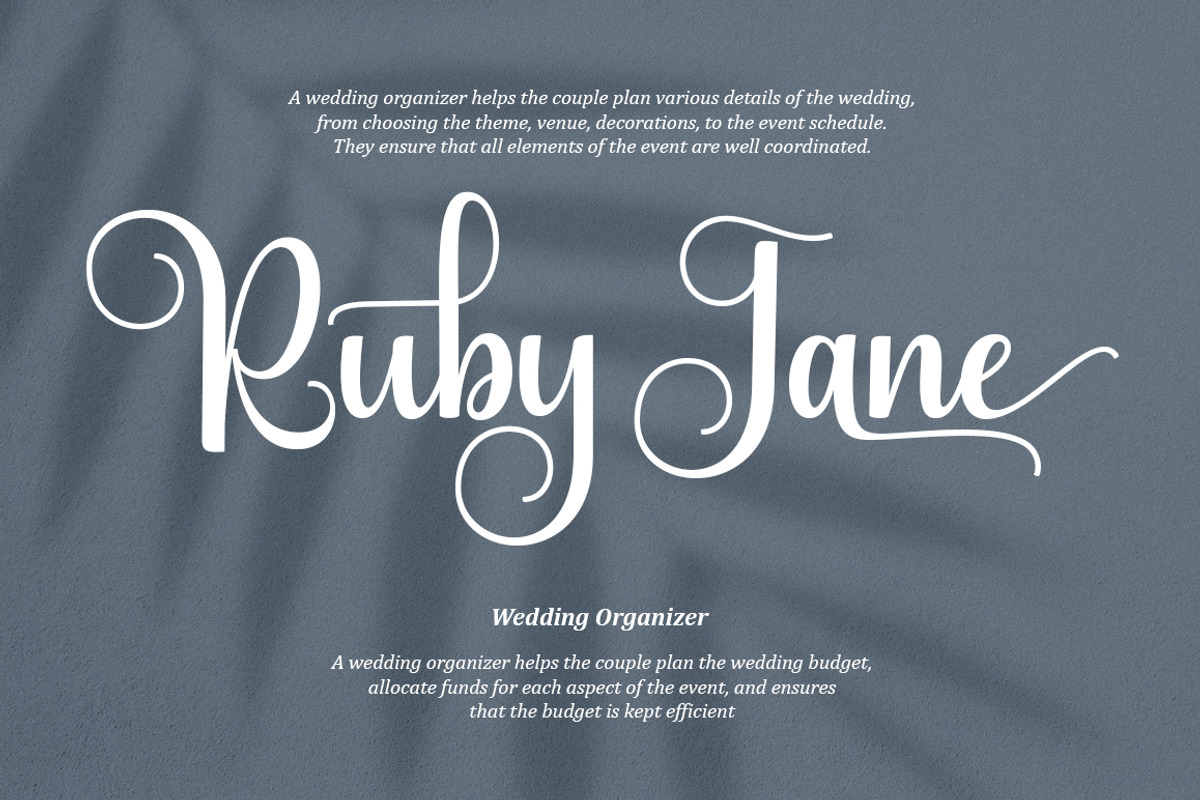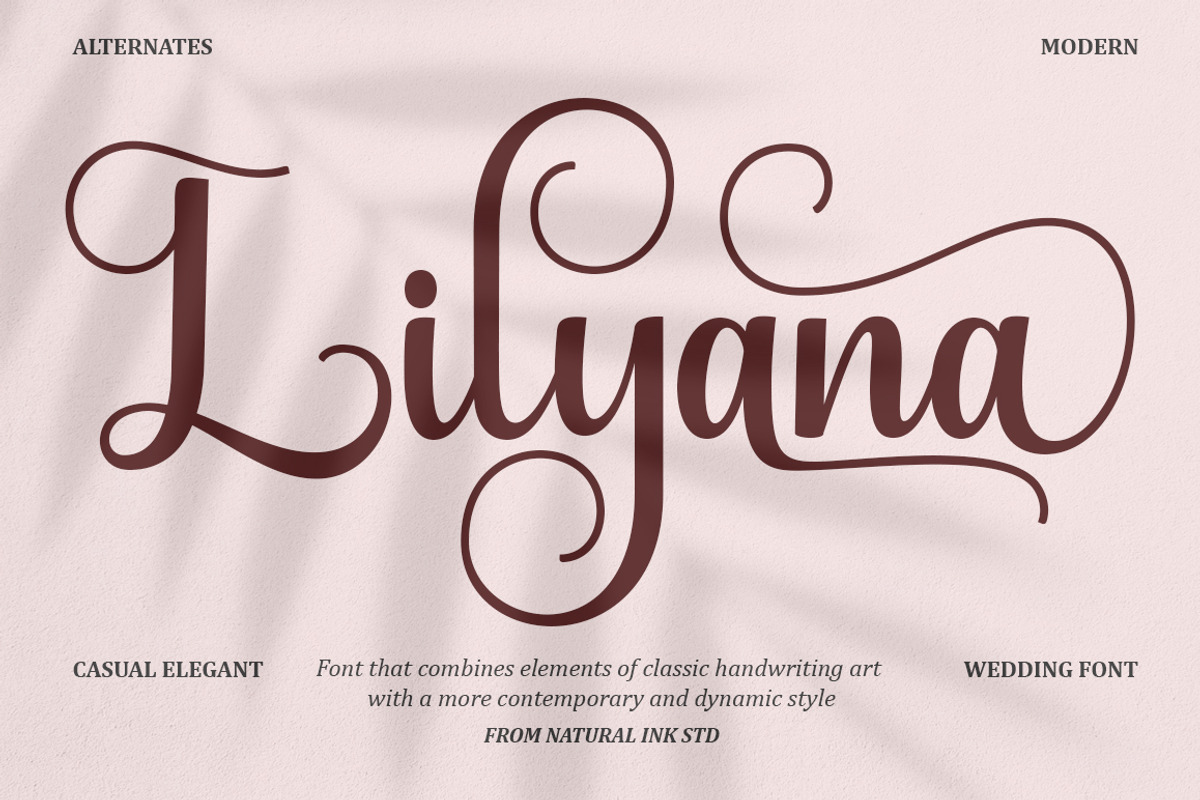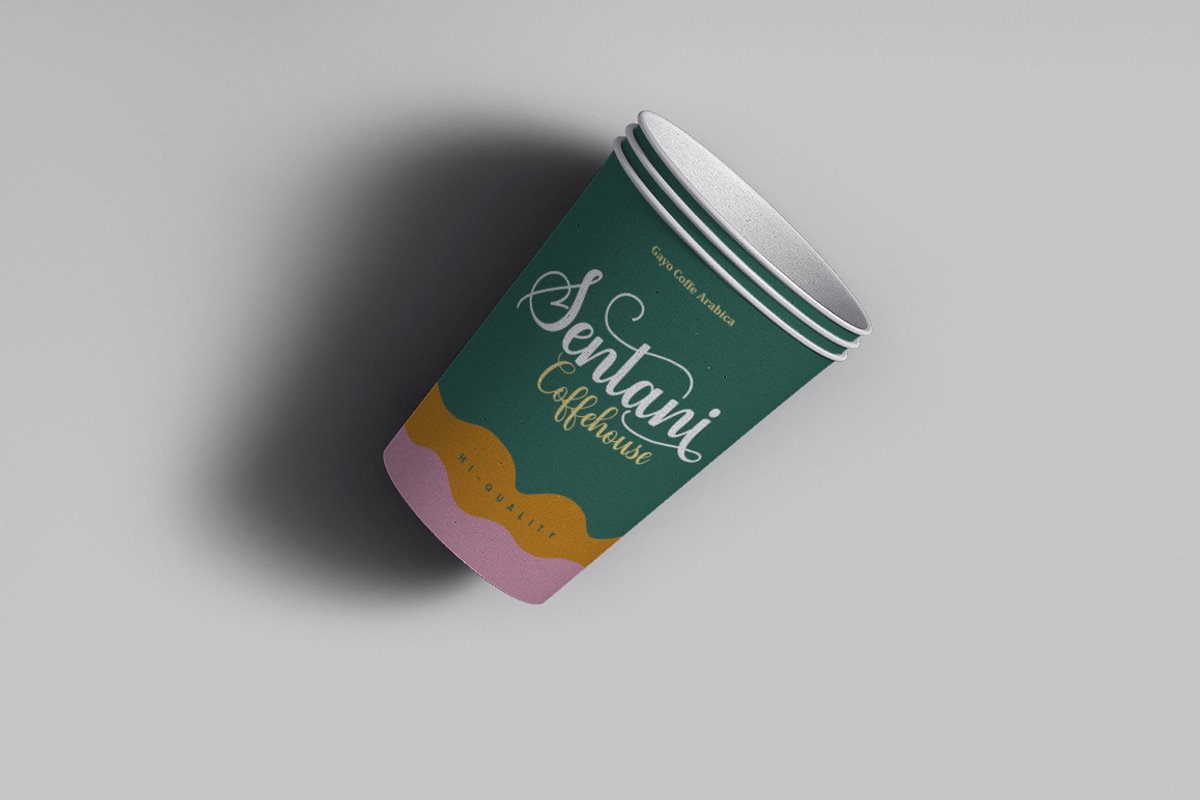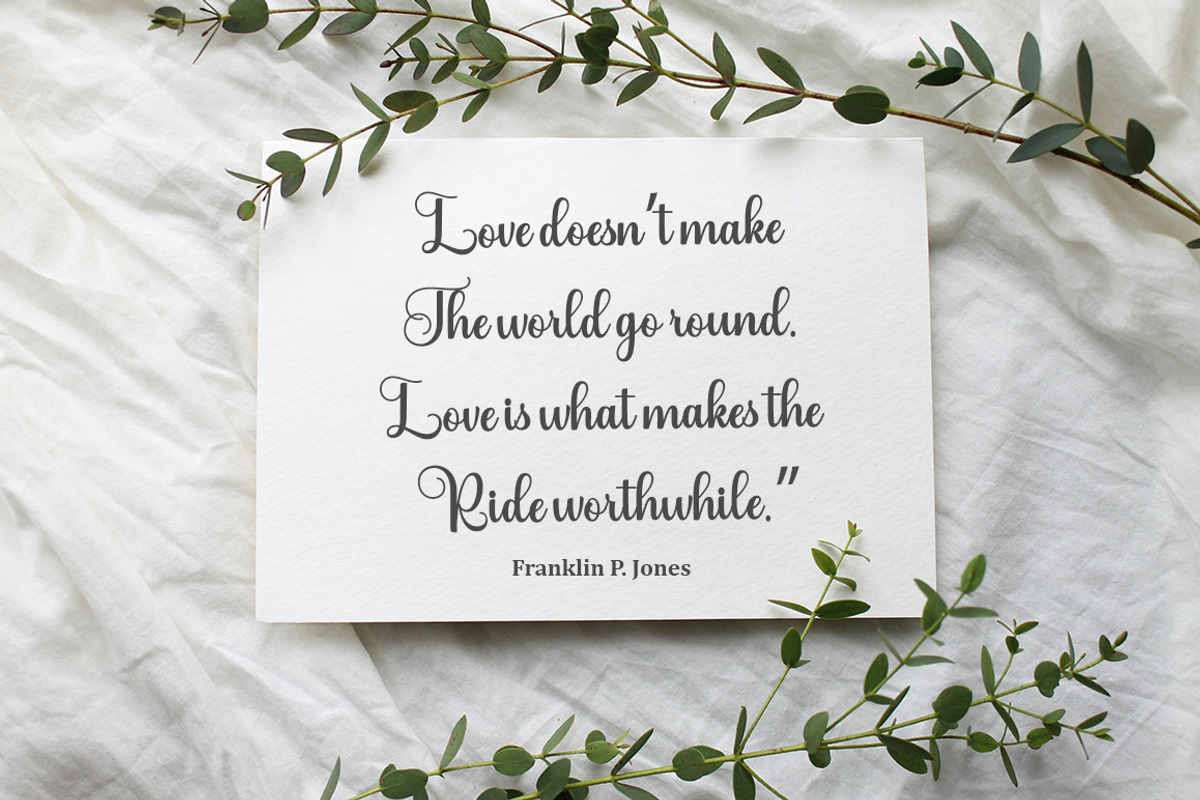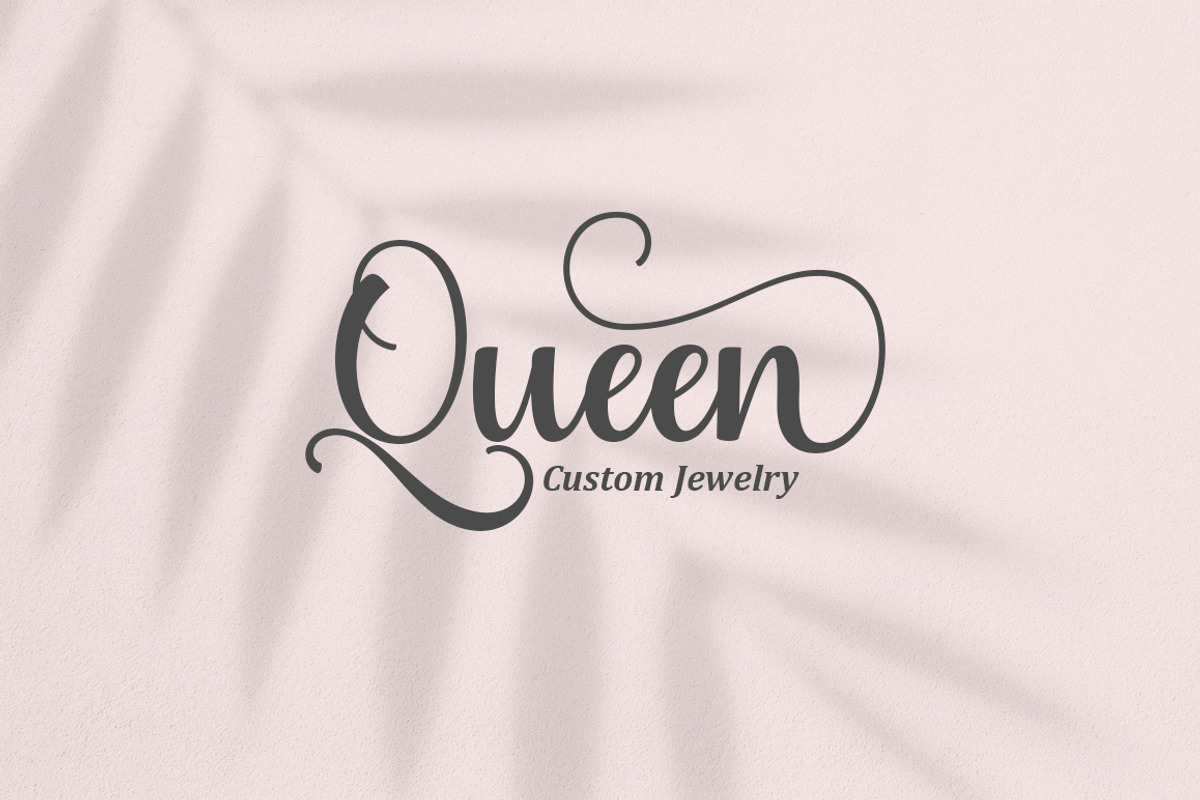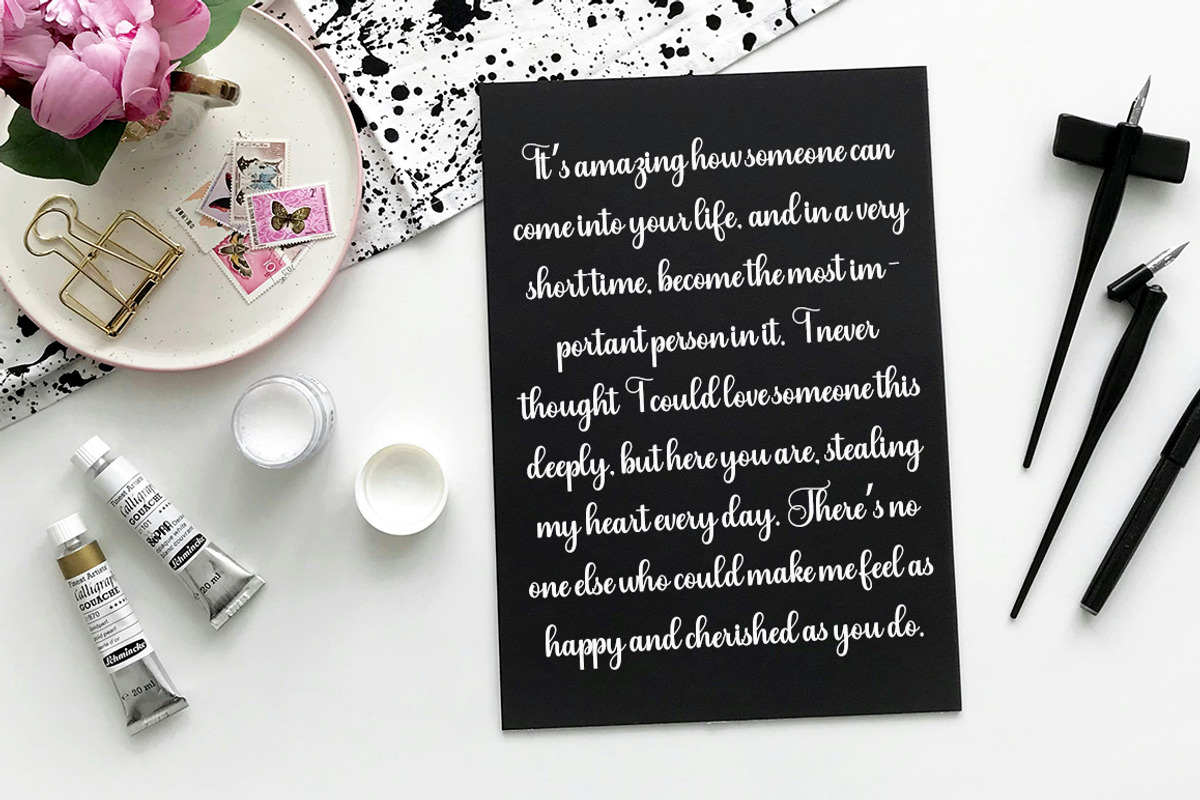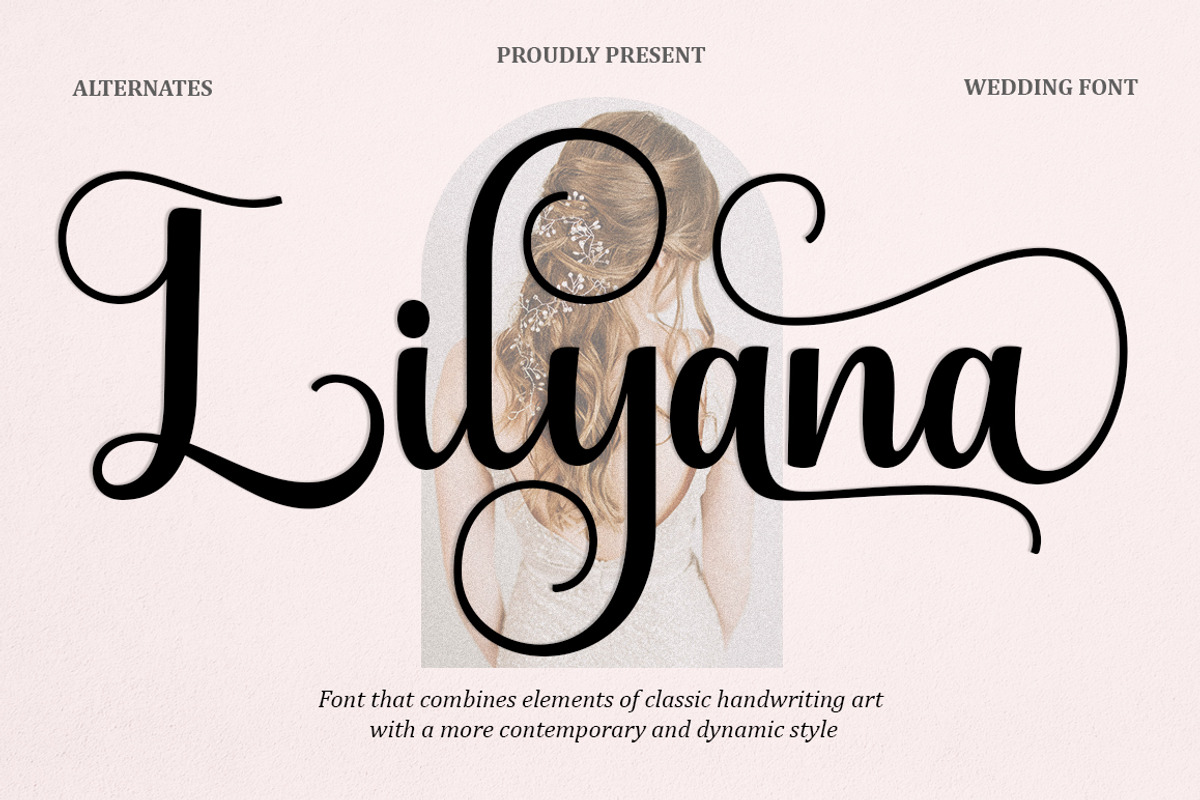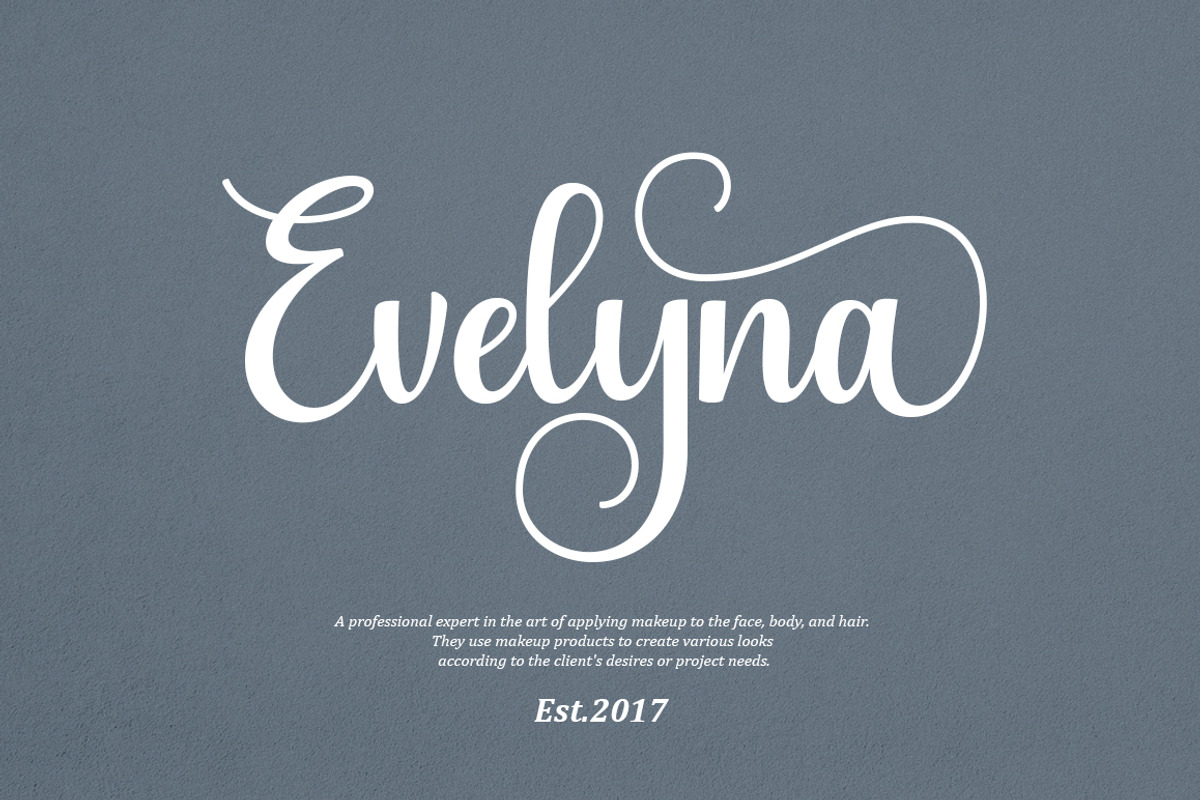
Lilyana Script
Introducing the Lilyana Script, designed distinctively for wedding elegance. The artistry and importance of depicting elements such as the couple’s names, the special date, and the grand venue demand an unforgettable typeface. Lilyana Script embodies this elegance, flourishing a perfect harmony of aesthetic charm and crystal-clear legibility. Its special touch infuses your wedding details with a unique charm, ensuring your guests instantly recognize and remember the forthcoming joyous occasion. Its sophisticated design guarantees seamless readability, illuminating the crucial details with sophistication and grace.